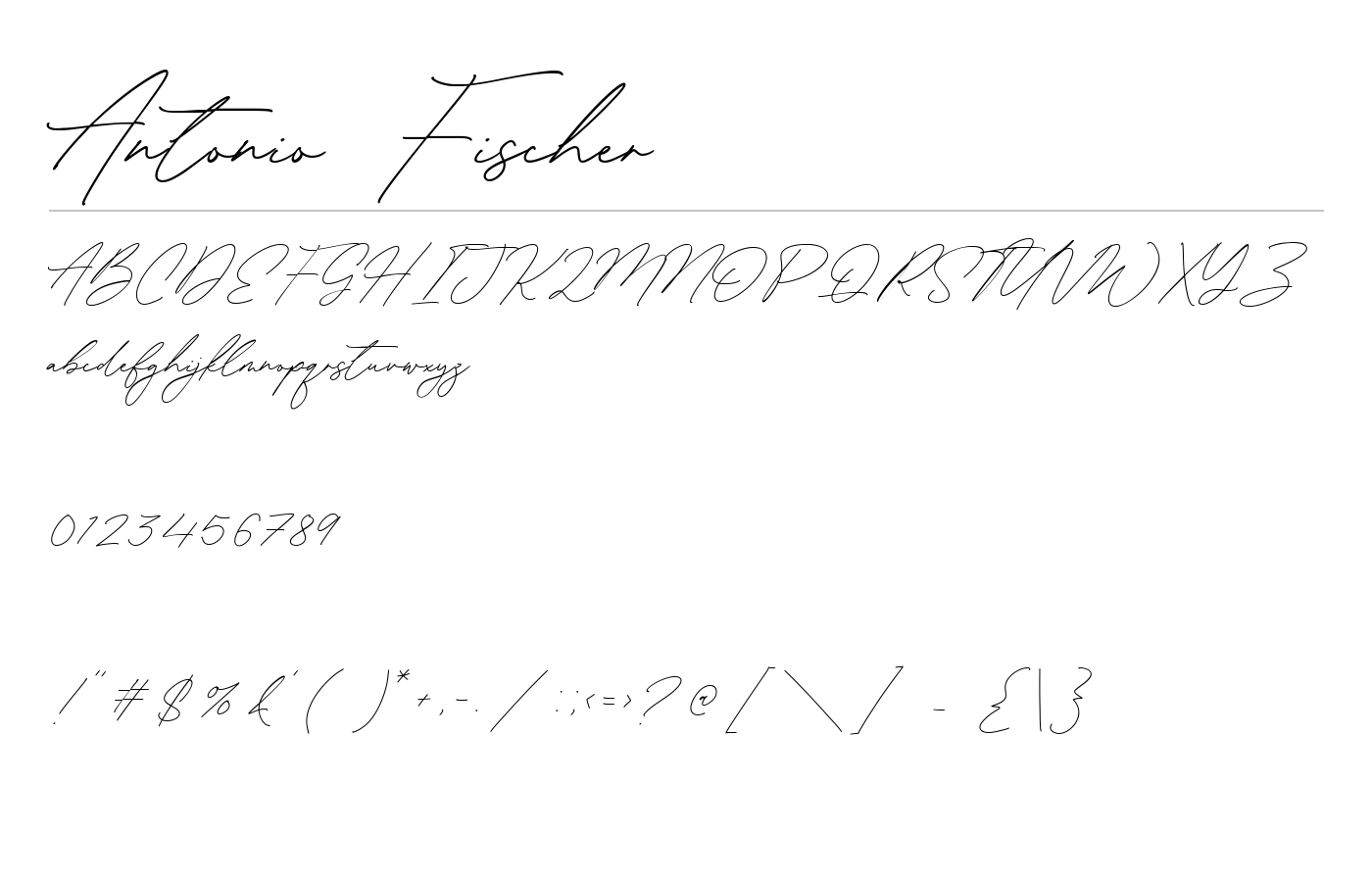
Antonio Fischer is an elegant and delicate script font characterized by thin, flowing strokes that mimic natural handwriting with a refined touch. Its tall, slender letterforms and graceful curves make it ideal for sophisticated branding, invitations, and stylish editorial designs where a personal, artistic feel is desired. This font works best in contexts that benefit from a handwritten, intimate aesthetic rather than heavy text blocks.
Antonio Fischer Font